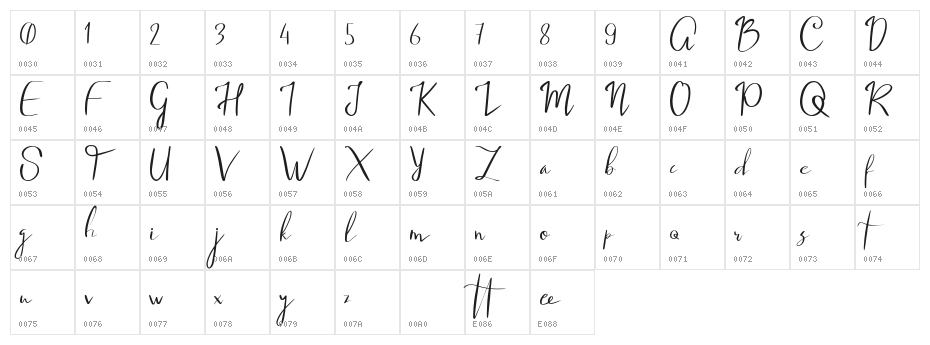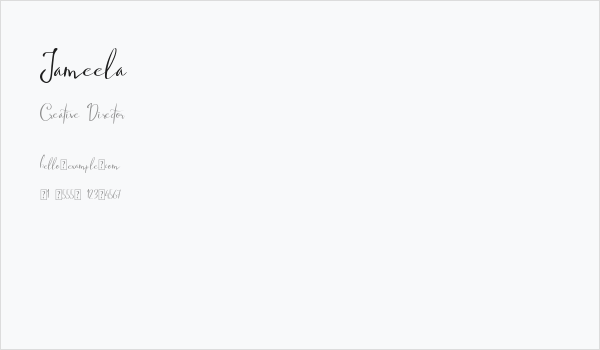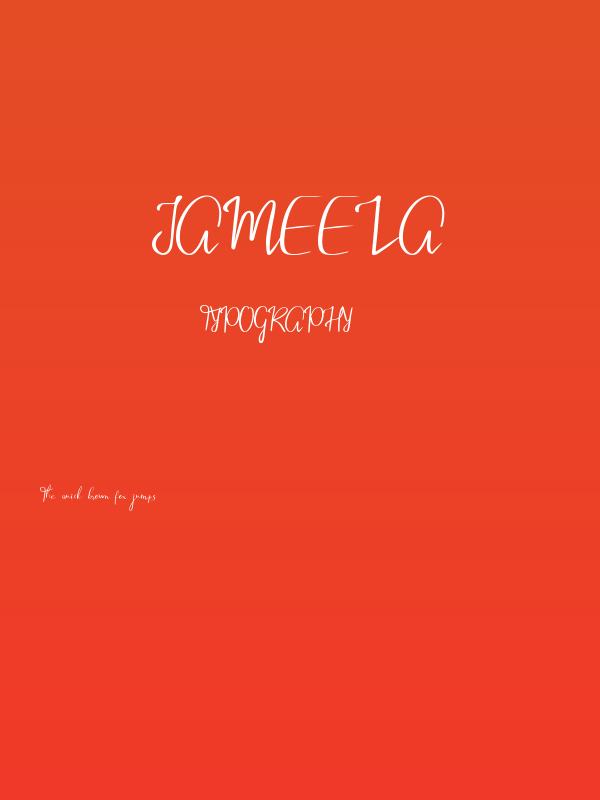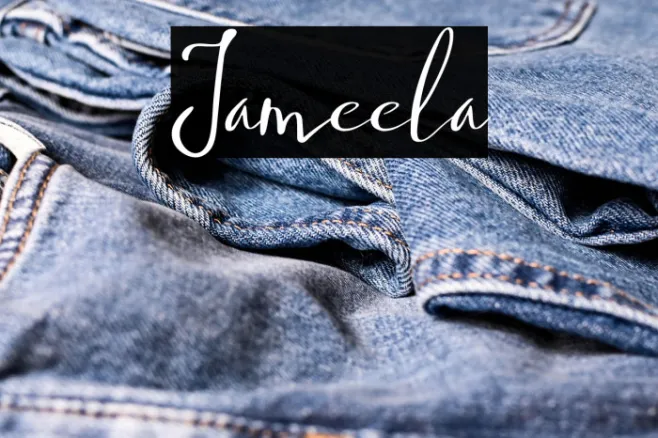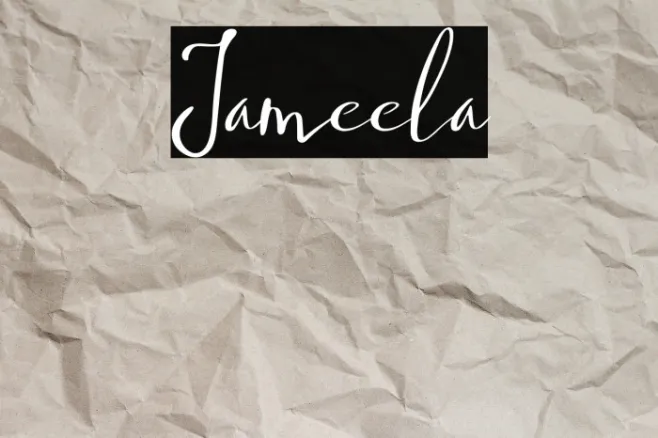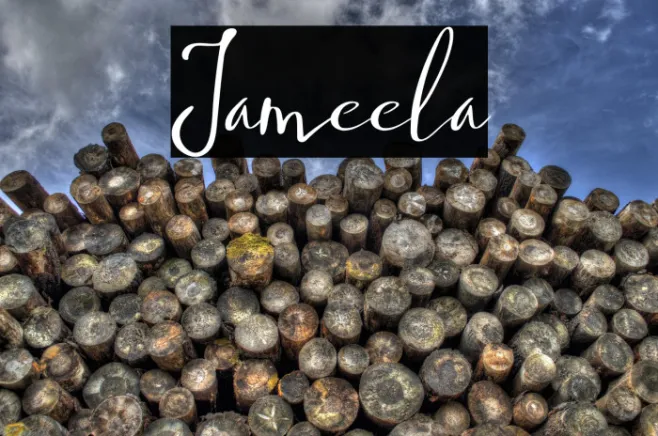
Jameela Font
Jameela Description
This font exudes a graceful and flowing script style, characterized by its elegant and fluid letterforms. The uppercase letters are particularly ornate, with sweeping curves and delicate loops that give a sense of movement and sophistication. The lowercase letters maintain a consistent flow, complementing the uppercase with their smooth and connected strokes. The numerals are distinct yet harmonious with the overall script style, ensuring readability while maintaining the font's decorative nature. The special characters are designed to blend seamlessly with the alphabet, adding versatility for various design needs.
| Proposed Projects | Ideal for wedding invitations, elegant branding, personal stationery, and decorative signage. |